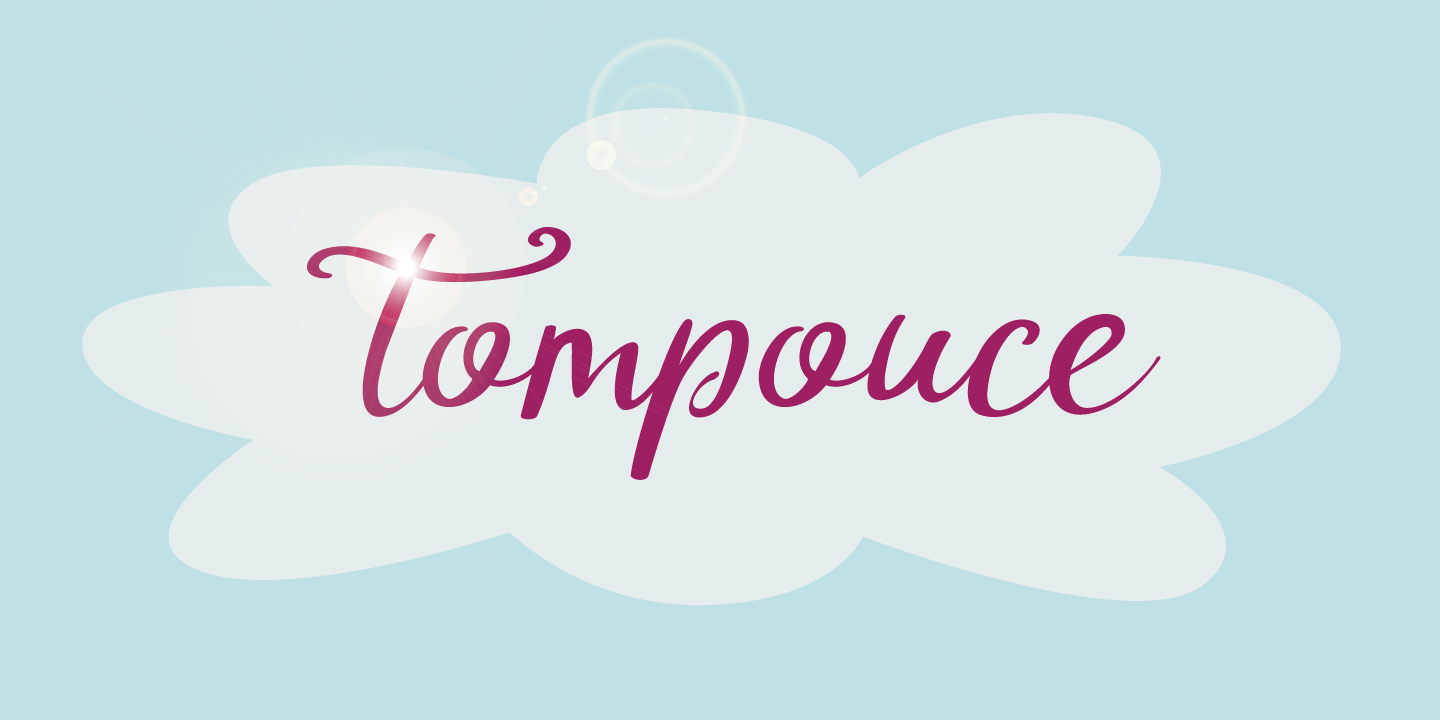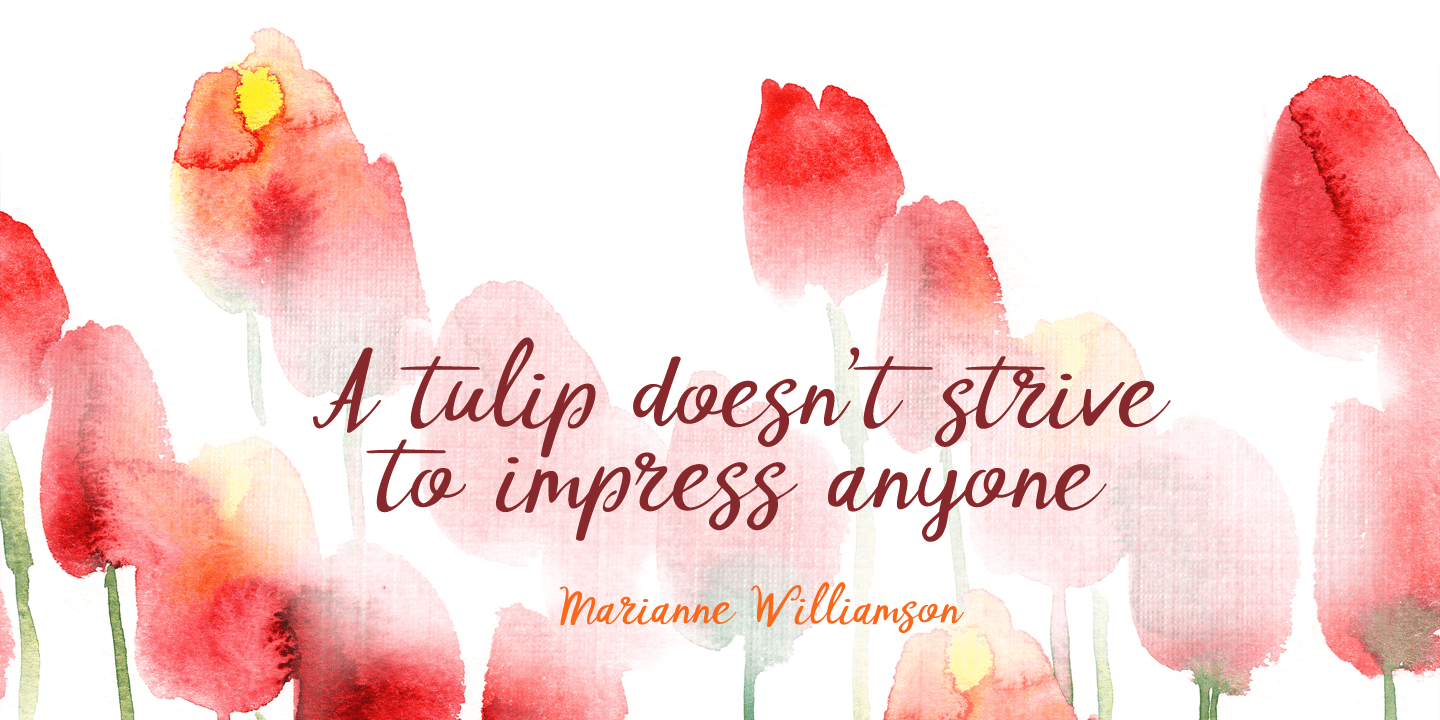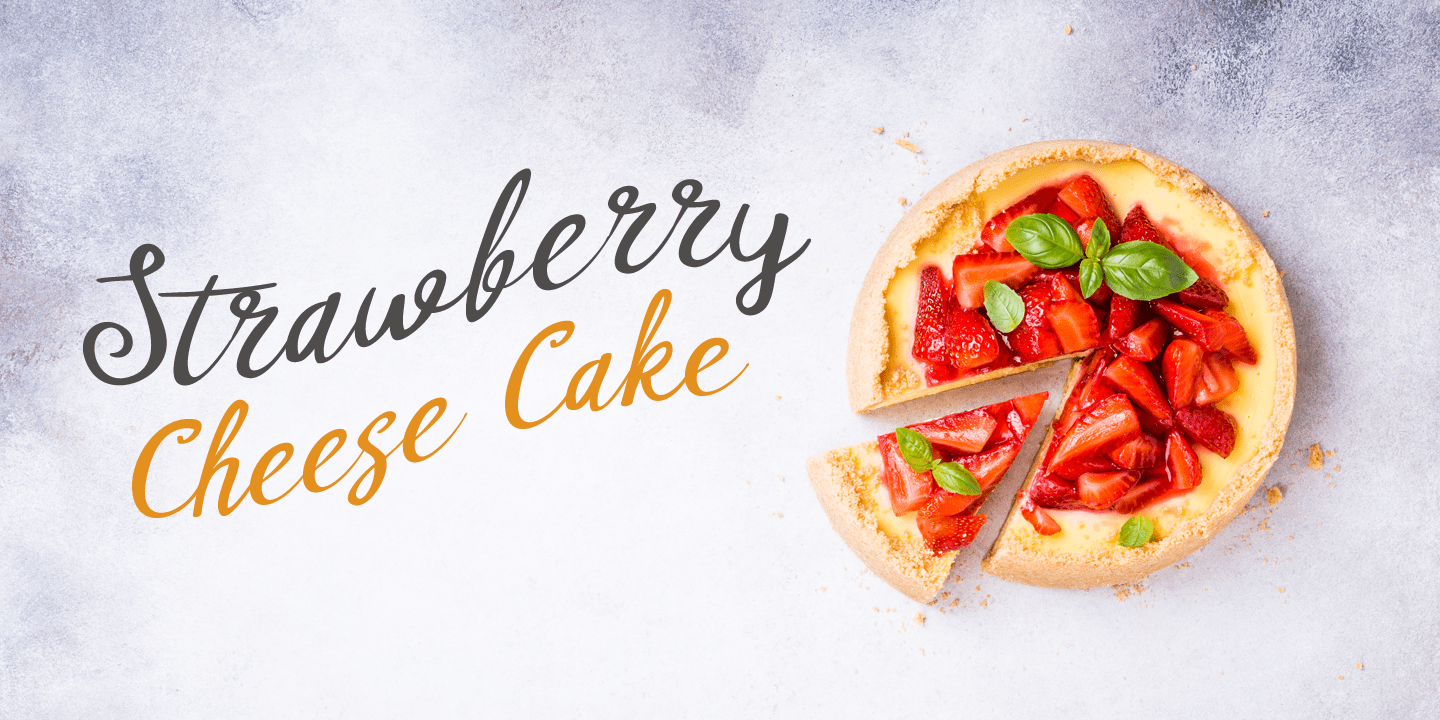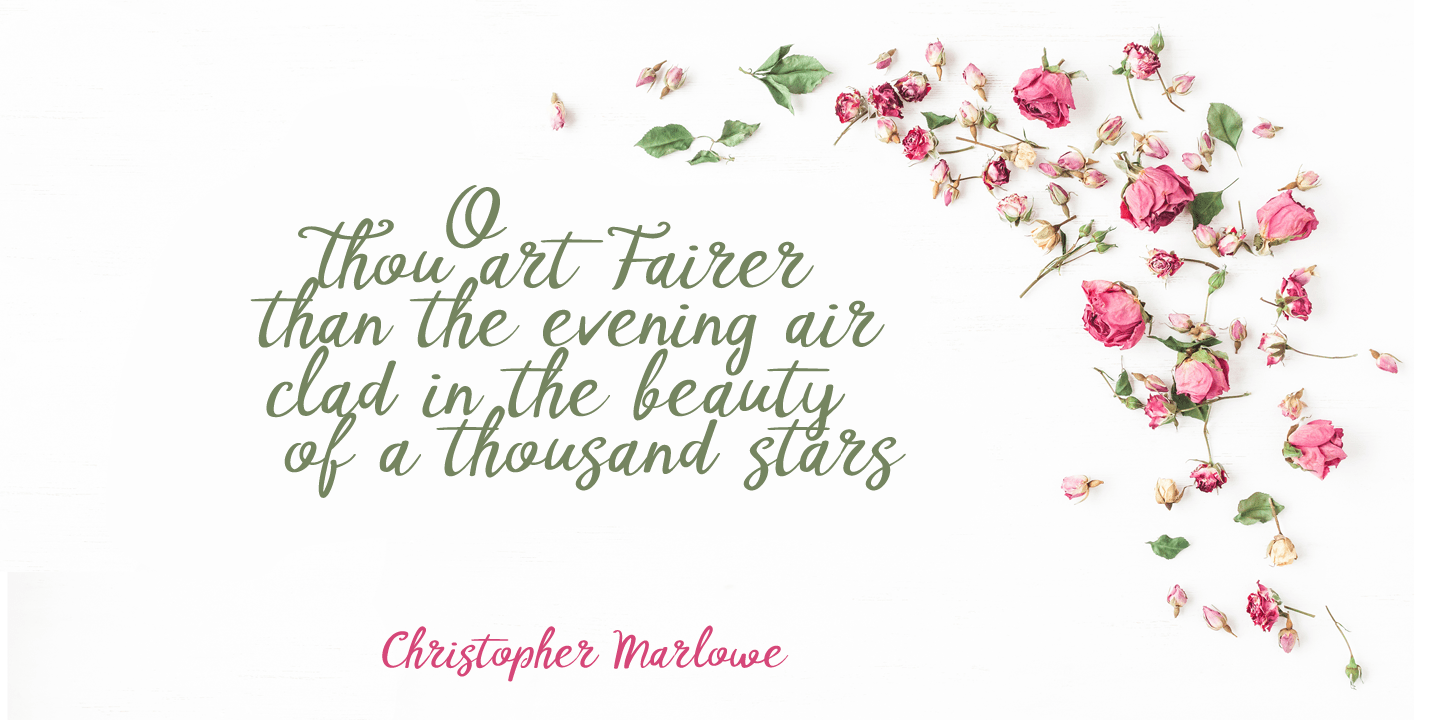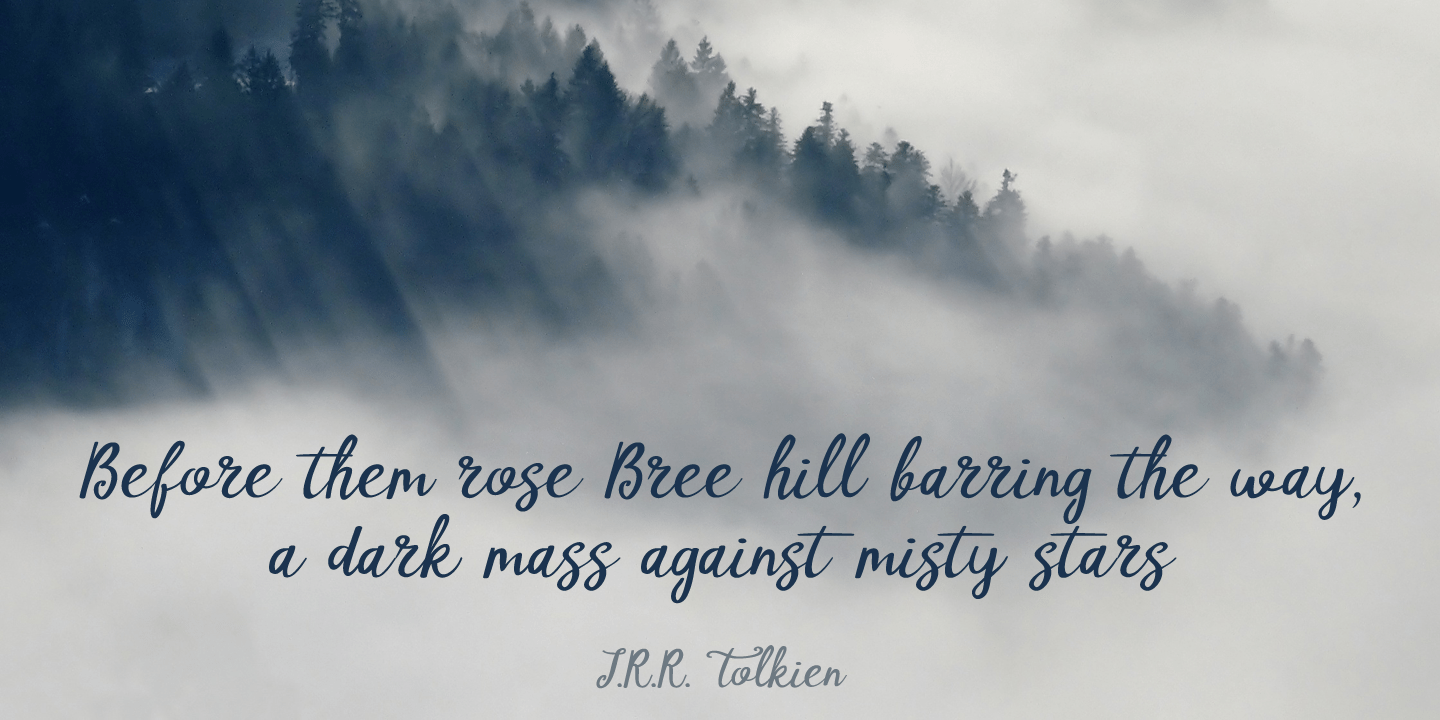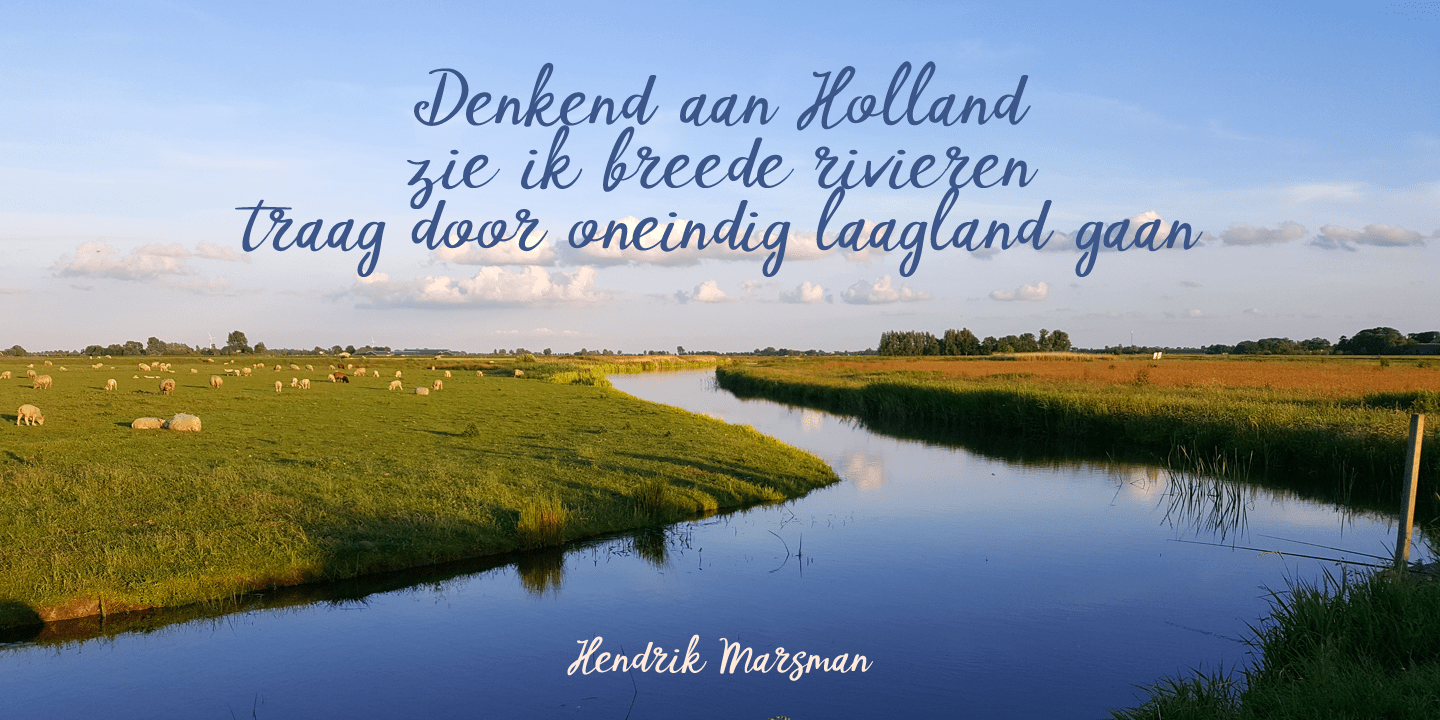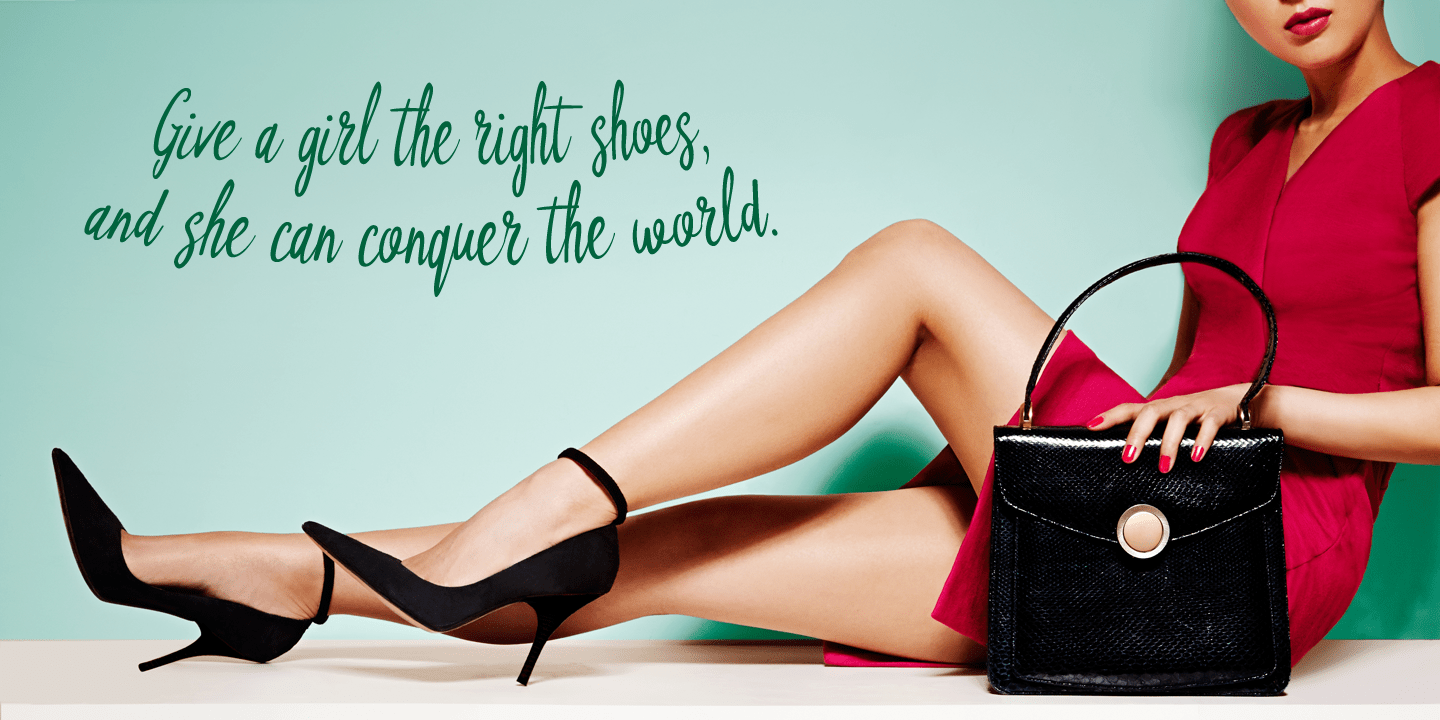
Tompouce
A Tompouce (also know as Tompoes) is a typical Dutch pastry. It consists of a thick layer of pastry cream, sandwiched between two layers of puff pastry. It usually comes with pink icing, except on the king's birthday, when the icing is orange. Tompouce is also a very nice connected script, with a lot of curly letters, some double letter ligatures and all the diacritics you can throw a pastry at.
If it is an elegant, yet fun connected script you're looking for, well? Tompouce may just be what you need!
Tompouce by Hanoded